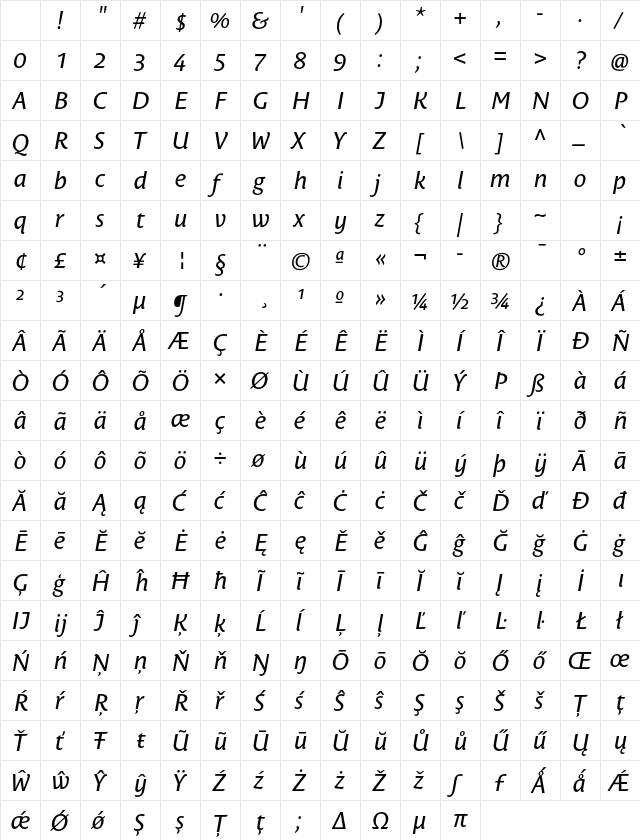
Costa Ptf is a composed and adaptable typeface that performs quietly and consistently across a wide range of design contexts. The slanted form adds forward momentum and visual energy.
Pro Tip: Use Costa Ptf for emphasis, pull quotes, and subheadings where its slanted energy can add rhythm to the layout.